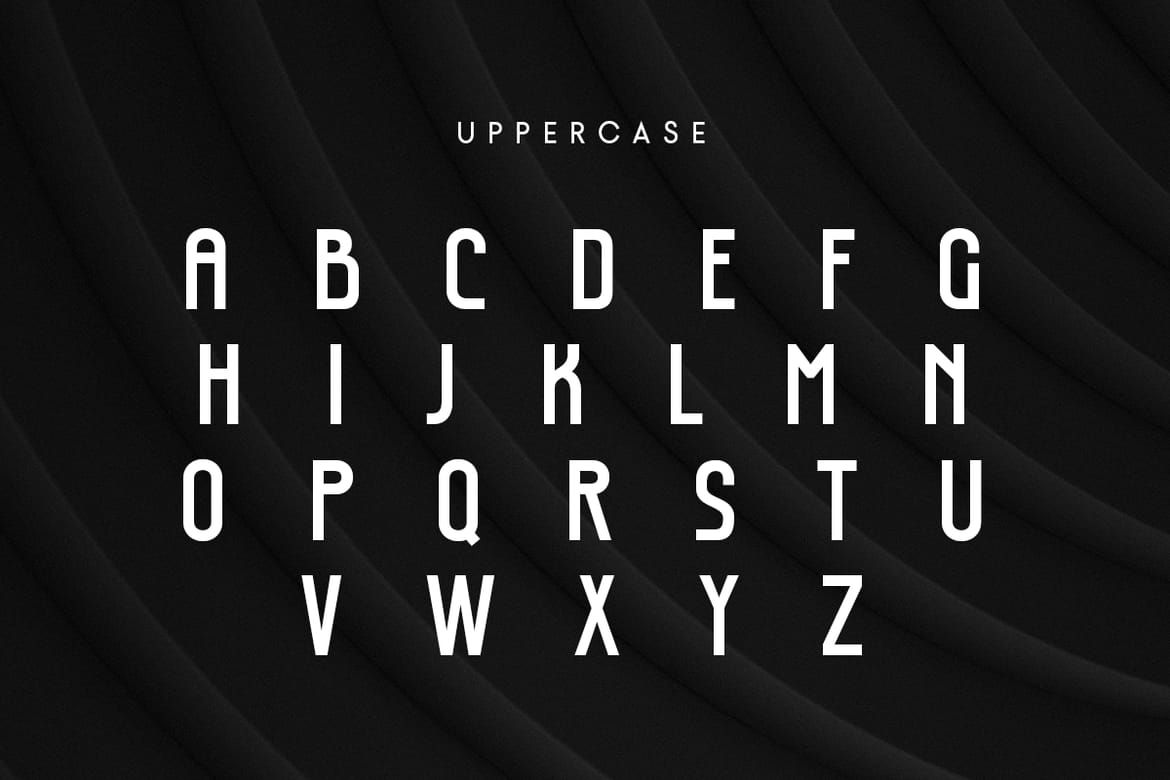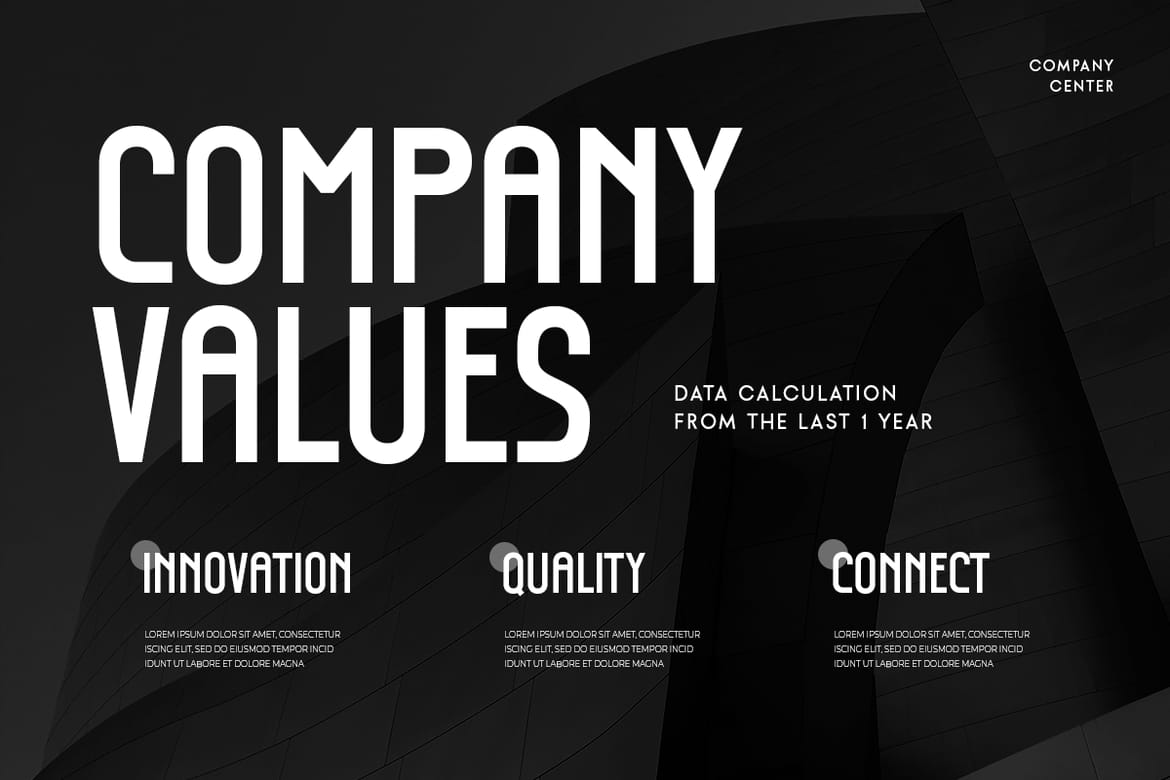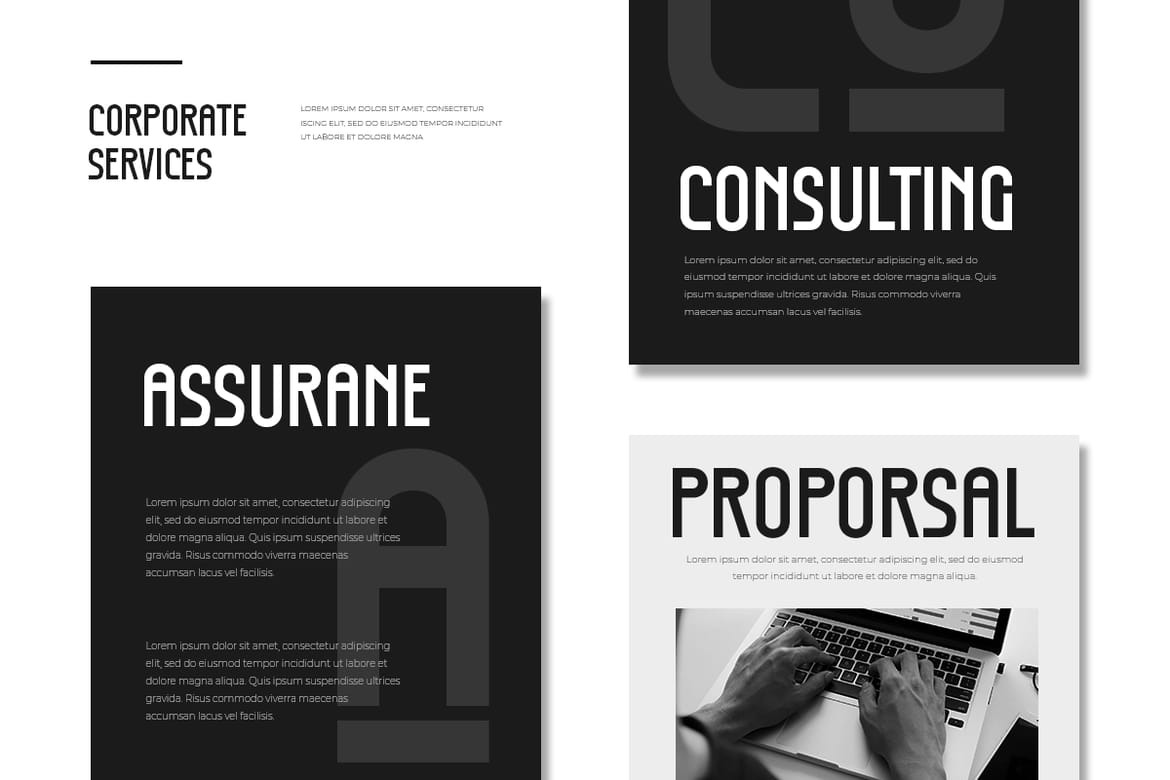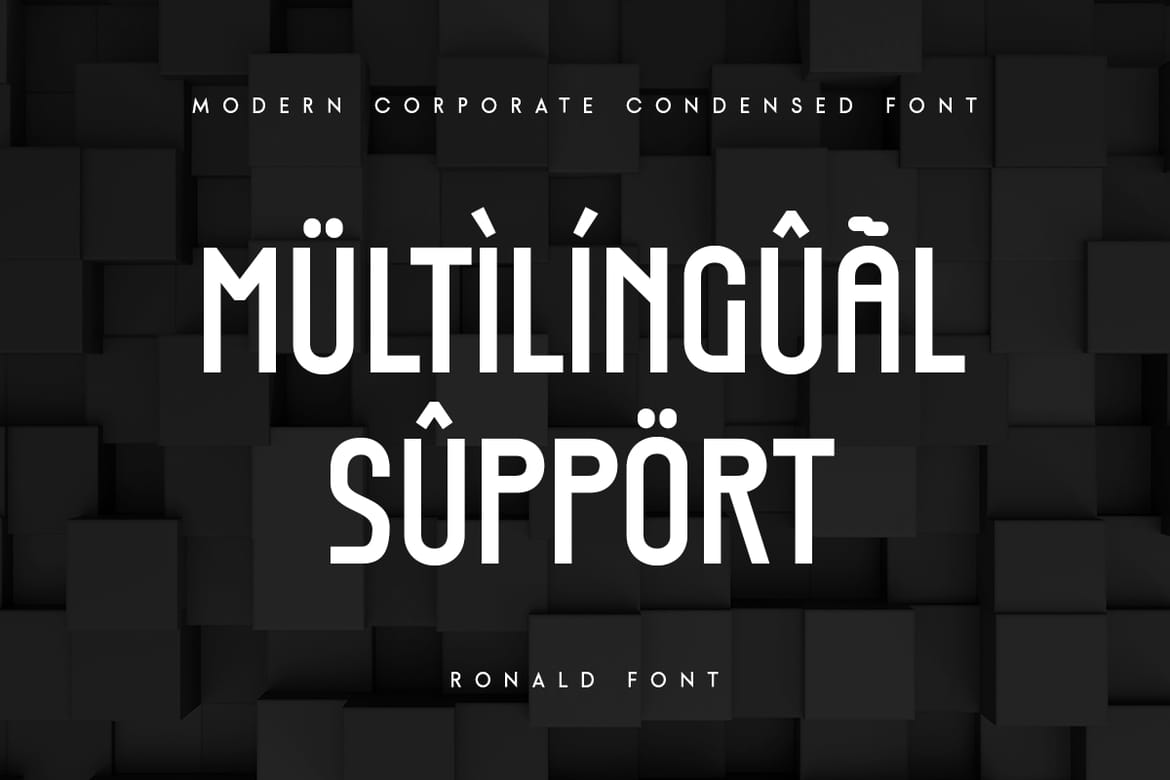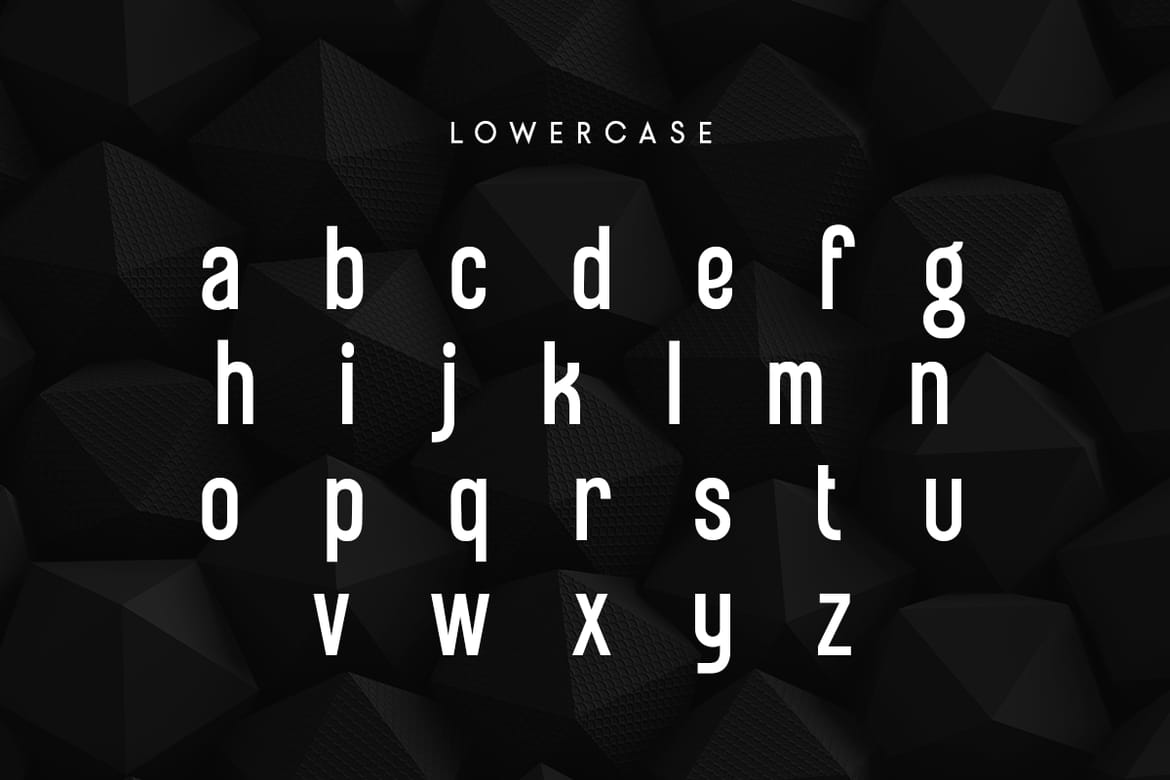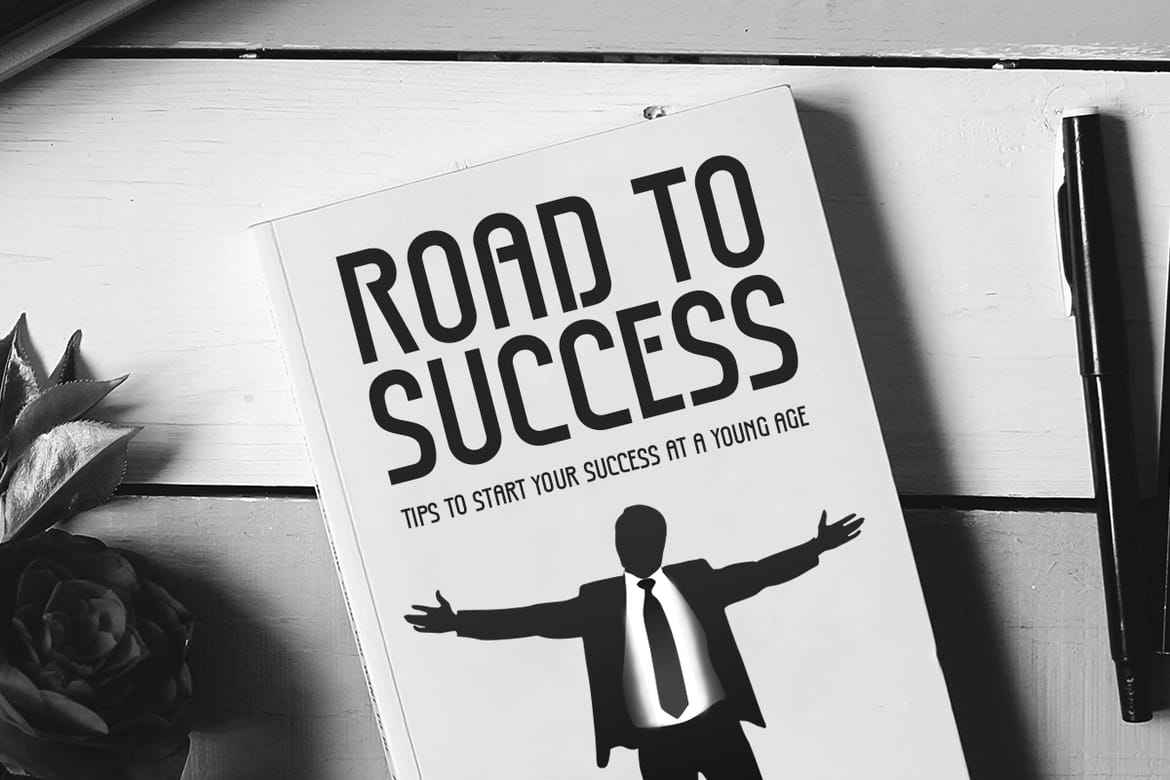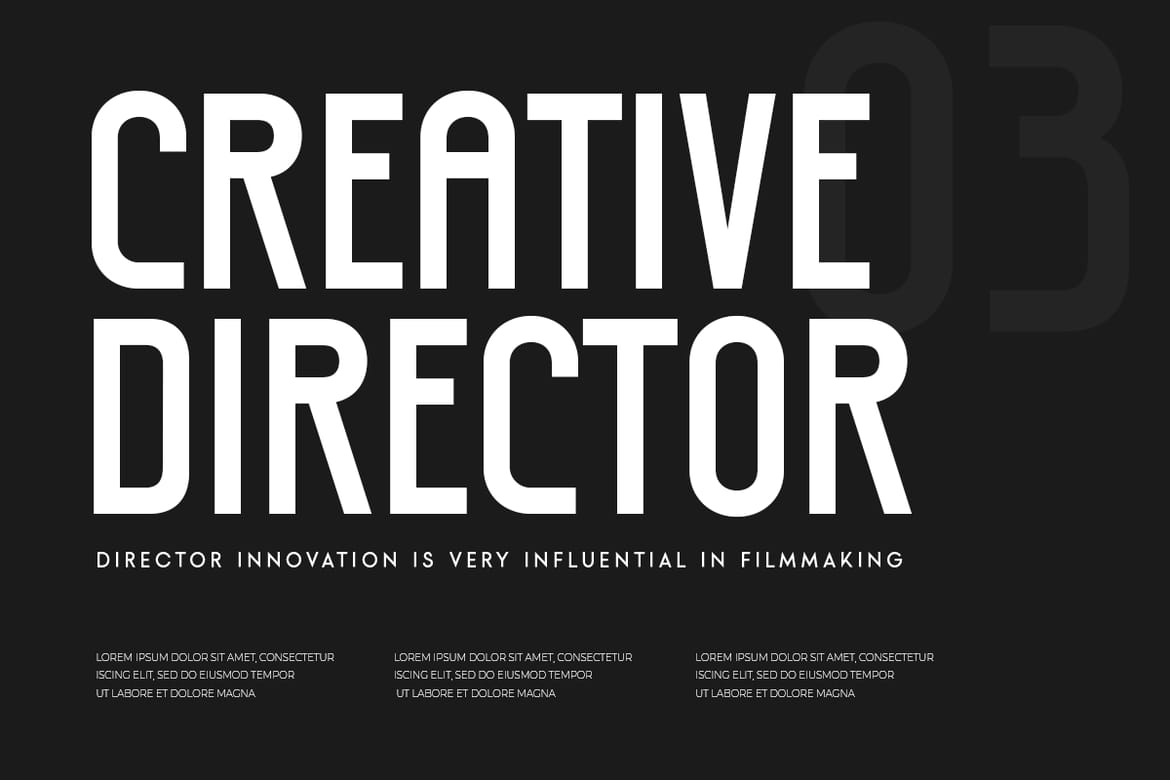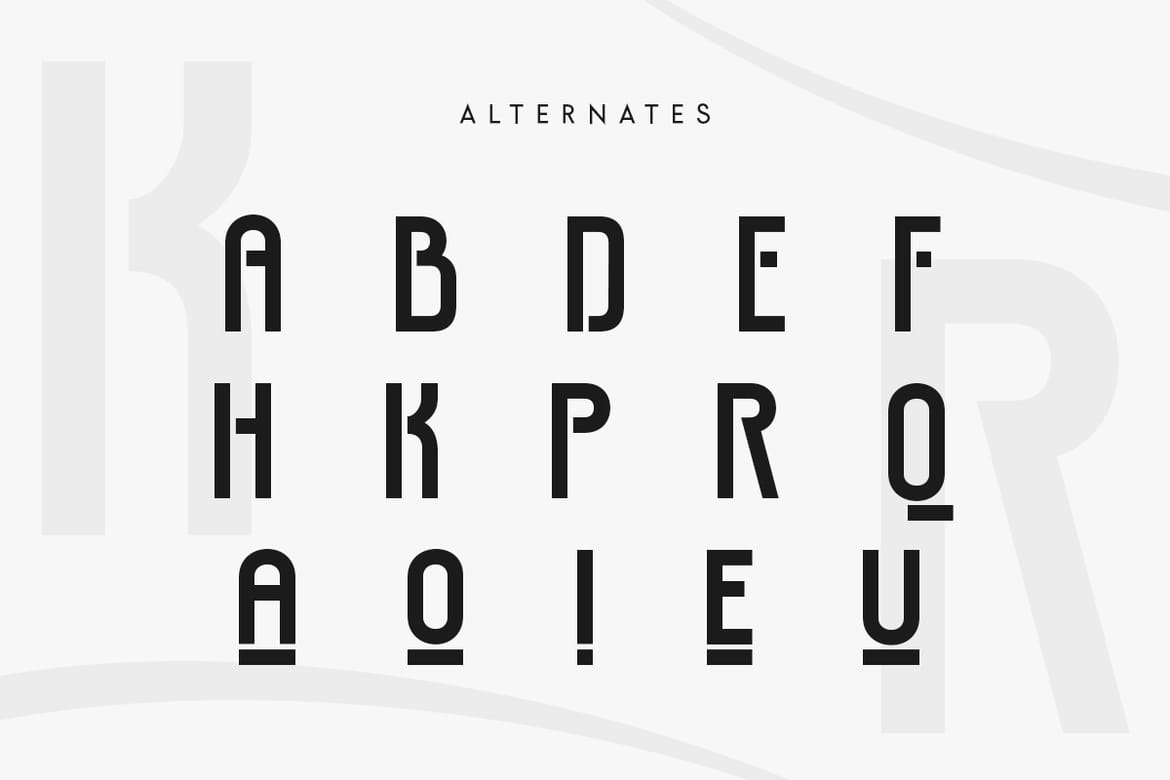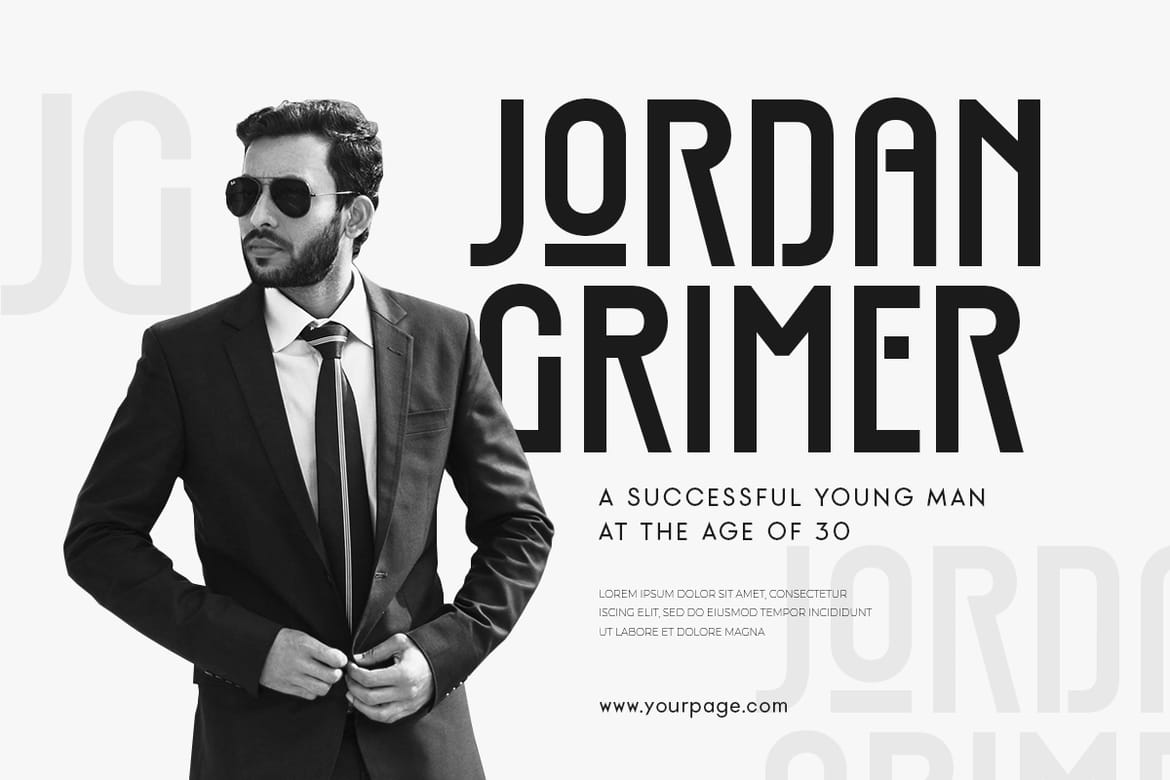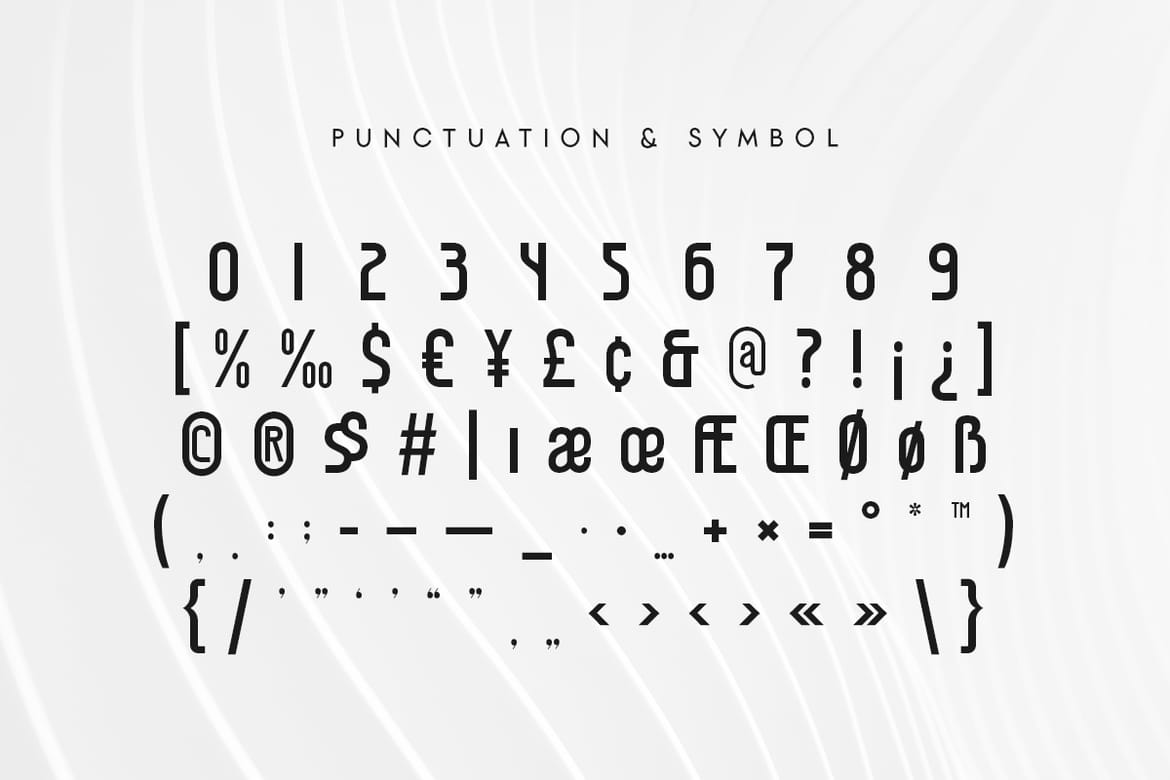
Ronald - Modern Condensed Font
Modern condensed sans serif font perfect for headlines and branding with elegant character style. Ready with multiple alternate characters and ligatures for creative design variations.
• Condensed sans serif
• Headlines and branding
• Elegant modern design